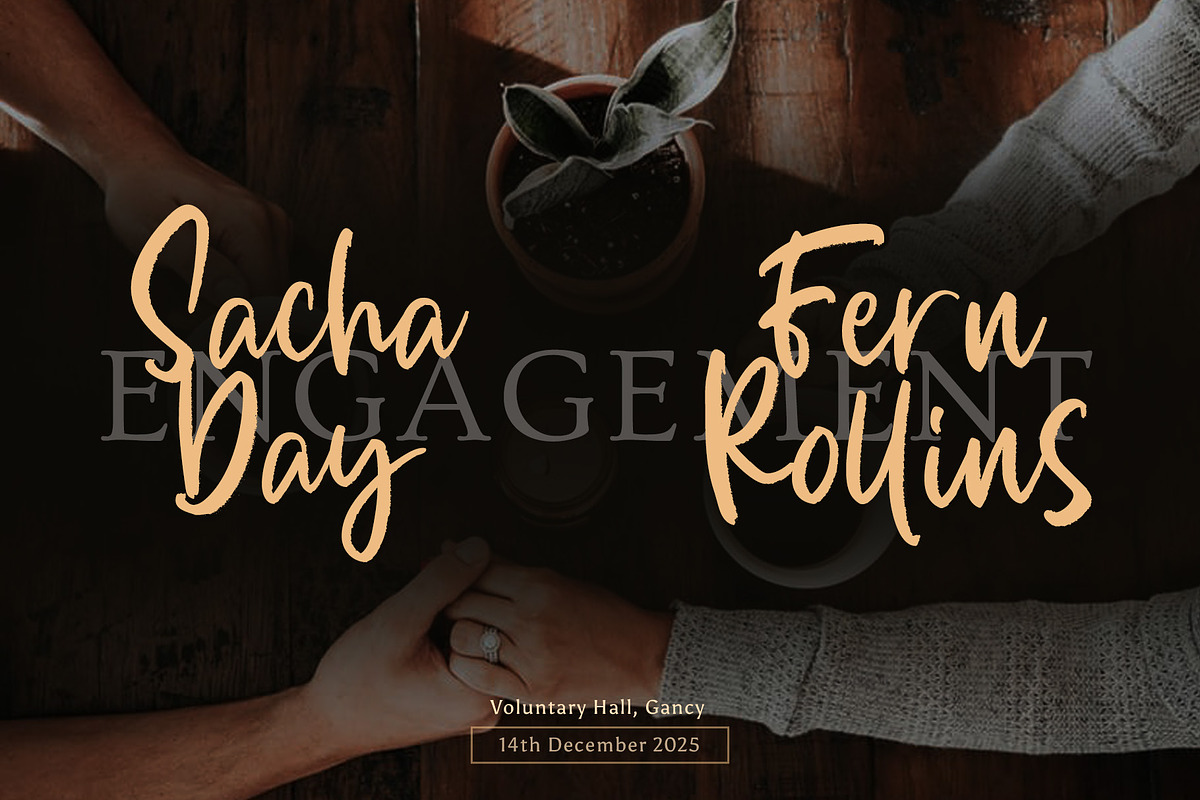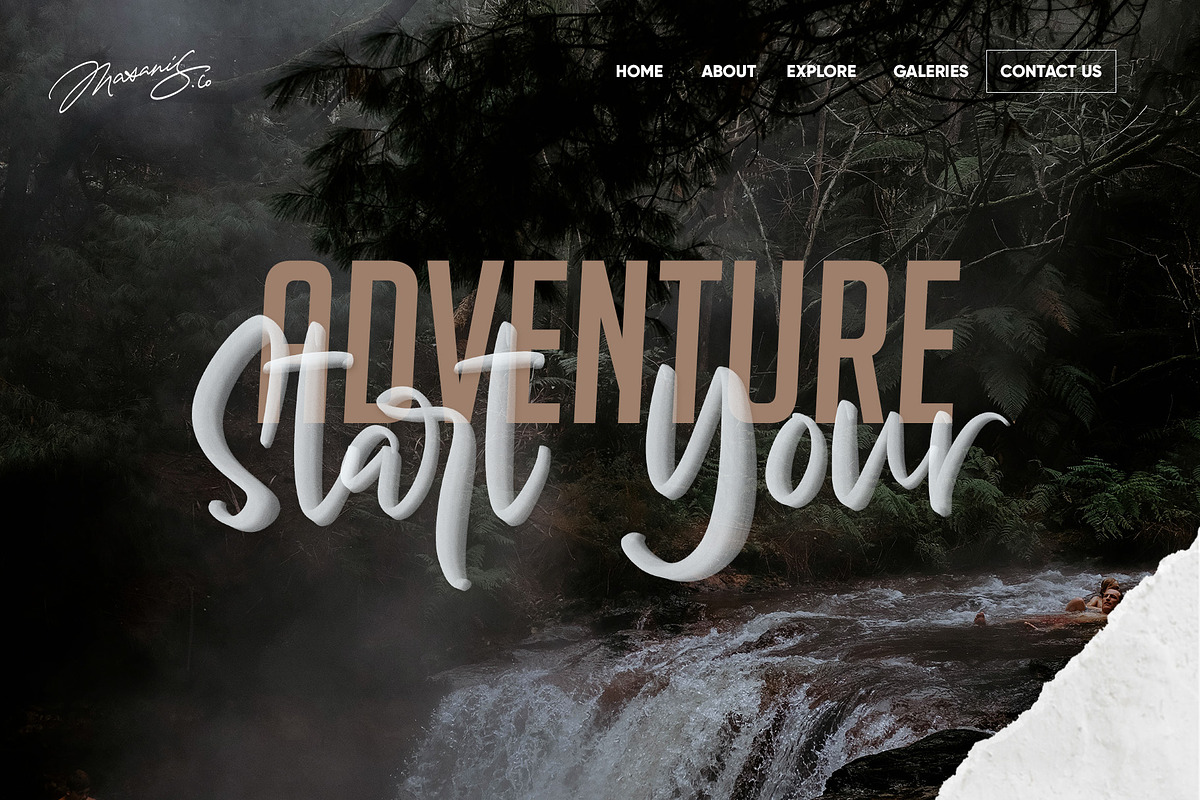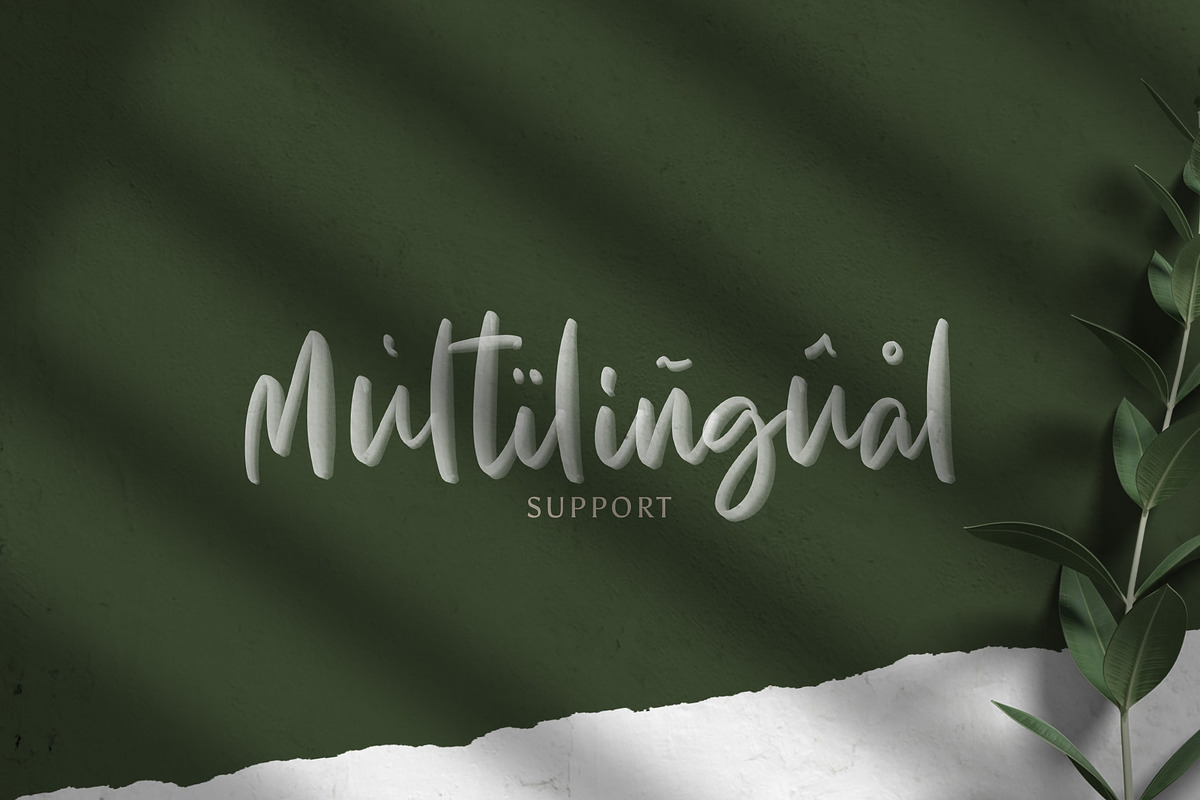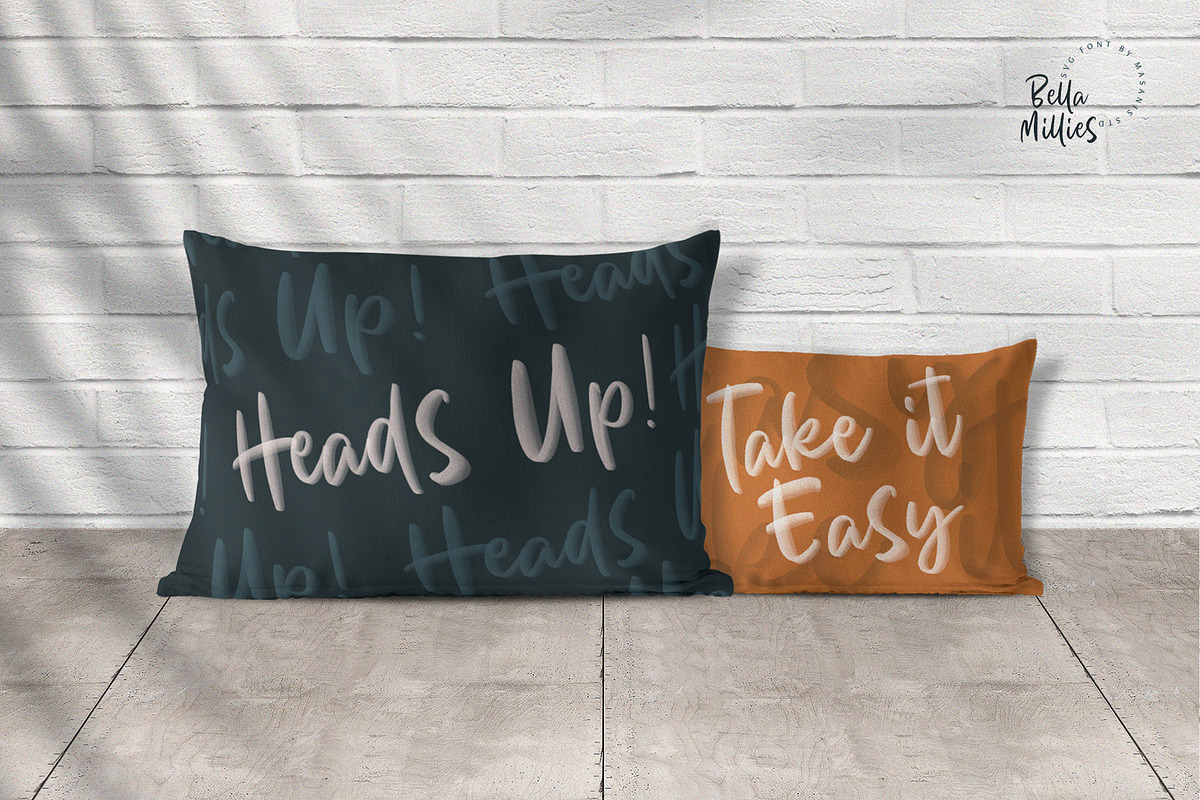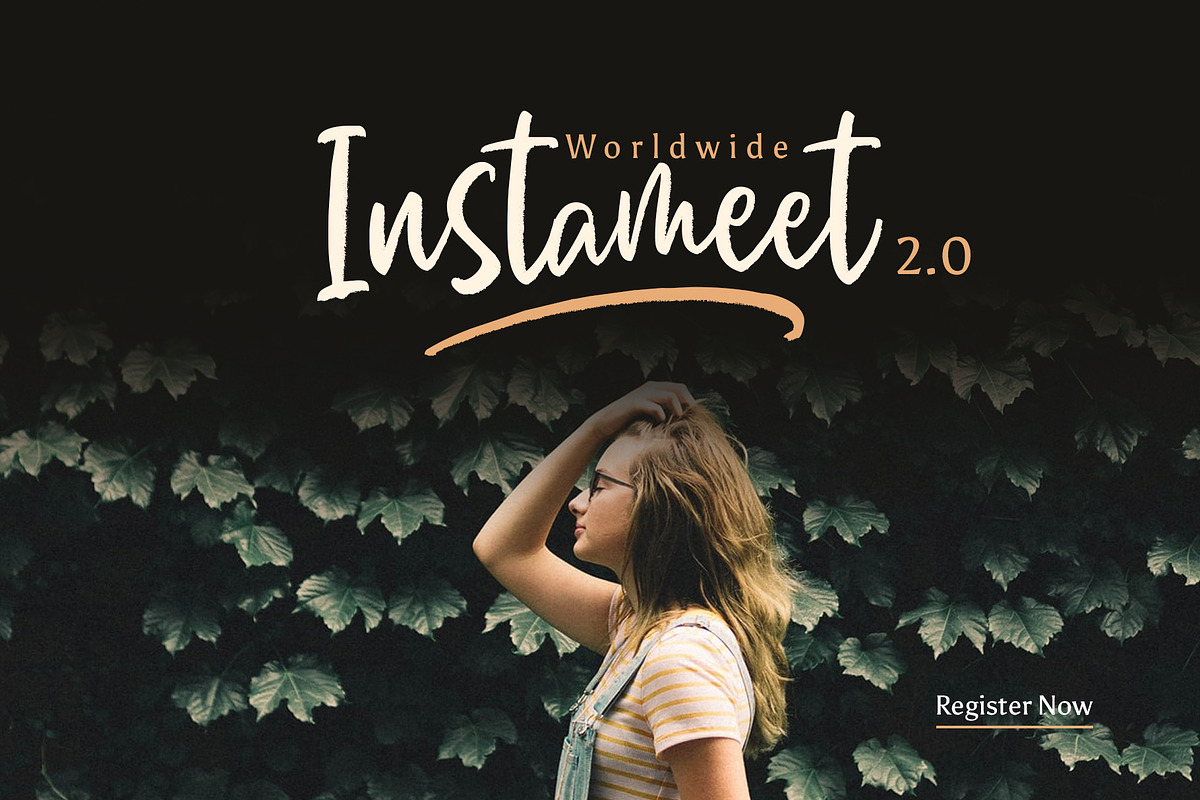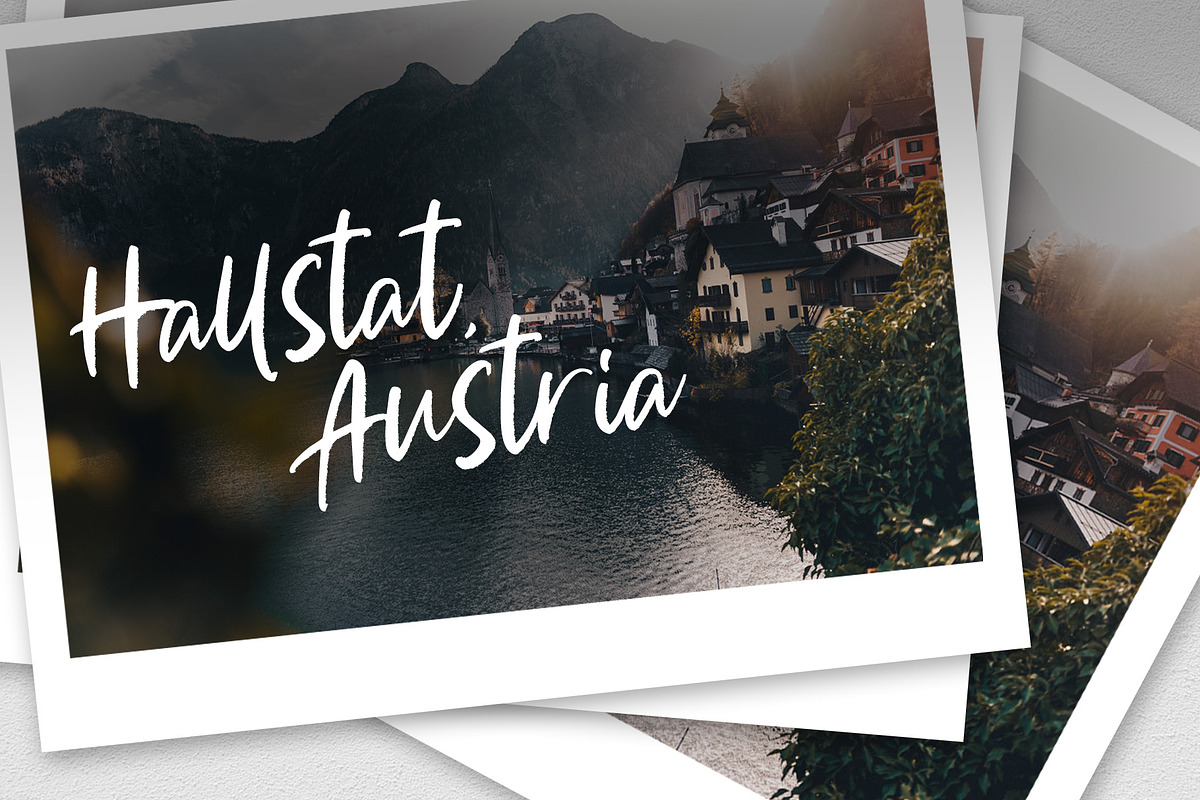
Bella Millies
Say hello to Bella Millies! SVG font with a realistic hand-lettered sharpie look that makes it the perfect fit for signature logos, printed quotes, wedding invitation cards, social media headers, product packaging and a lot more!
-Bella Millies SVG: Uppercase & lowercase letters, numbers, punctuation, ligatures - this is the OpenSVG version of the font. All the letters are basically bitmap images (instead of vectors).
-Bella Millies Vector: Basically includes the same as above, but a vectorised, normal version for people who are not able to use the SVG version but still want to use the font. Remember that this version doesn't have the paint look or transparency.
-Bella Millies Allcaps SVG:Optimized All Uppercase version , numbers, punctuation, li- this is the OpenSVG version of the font. All the letters are basically bitmap images (instead of vectors).
-Bella Millies Allcaps Vector:Basically includes the same as above, but a vectorised, normal version for people who are not able to use the SVG version but still want to use the font. Remember that this version doesn't have the paint look or transparency.
-Bella Millies Swash SVG:All swash that you need to pair with font above - this is the OpenSVG version of the font. All the letters are basically bitmap images (instead of vectors).
-Bella Millies Vector:Basically includes the same as above, but a vectorised, normal version for people who are not able to use the SVG version but still want to use the font. Remember that this version doesn't have the paint look or transparency.